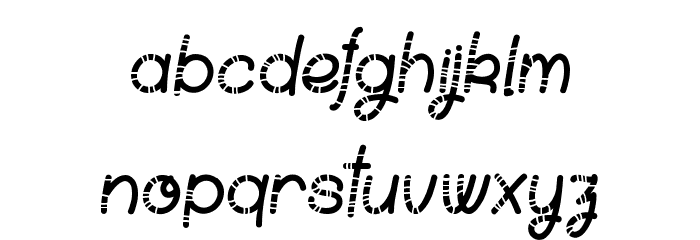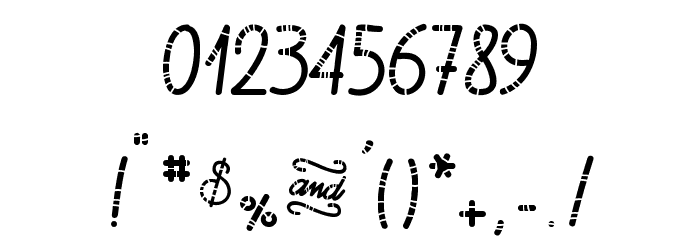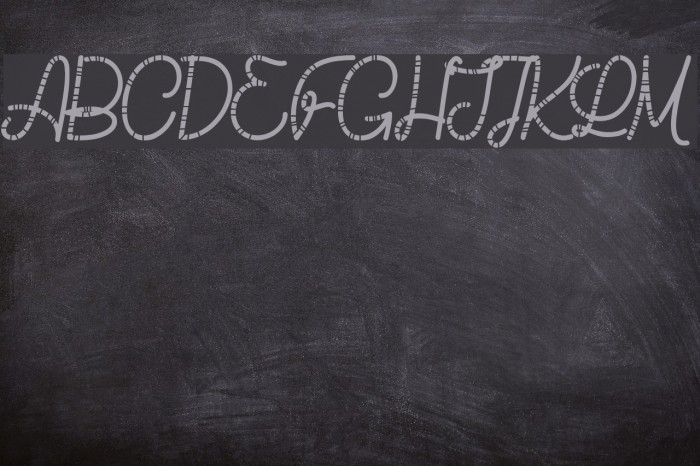
Chicken Socks1 Font
This font features a playful and decorative style with a unique pattern resembling stitches or dashes running through each character. The letters are slightly slanted, giving them a casual, handwritten feel. The uppercase and lowercase letters maintain a consistent design, with rounded edges and a smooth flow. Numbers and special characters are included, matching the overall whimsical aesthetic. The font's distinct appearance makes it stand out, ideal for creative projects that require a touch of fun and originality.
A playful, decorative font with a stitched pattern and casual, handwritten style.
- Proposed Projects: Ideal for children's book covers, playful branding, greeting cards, and DIY crafts.
- Use Case: Logos, Headlines, Creative projects